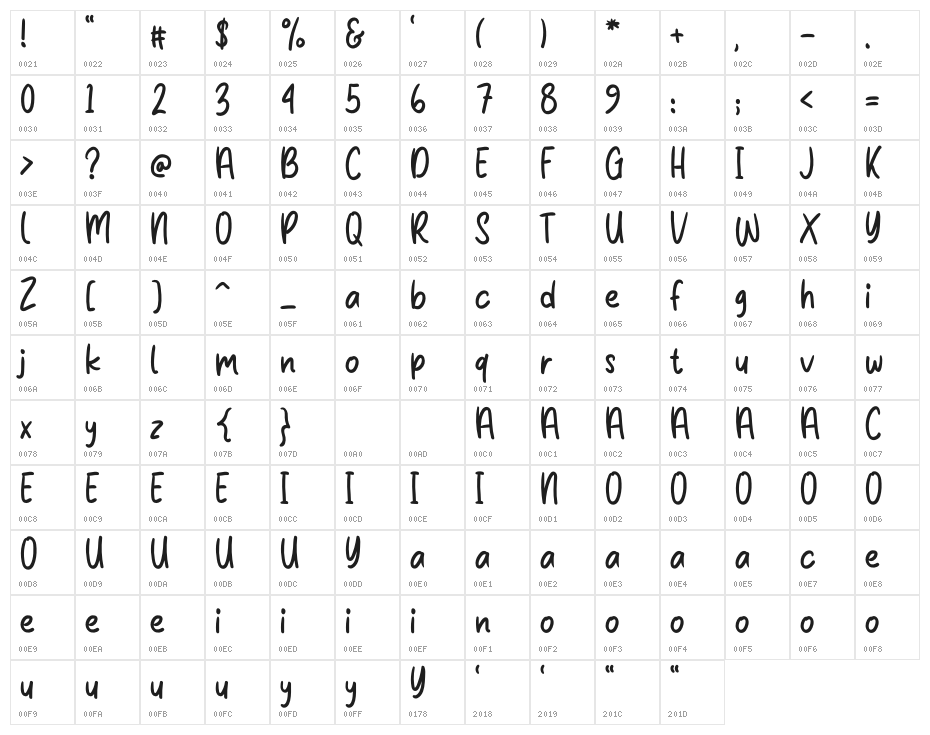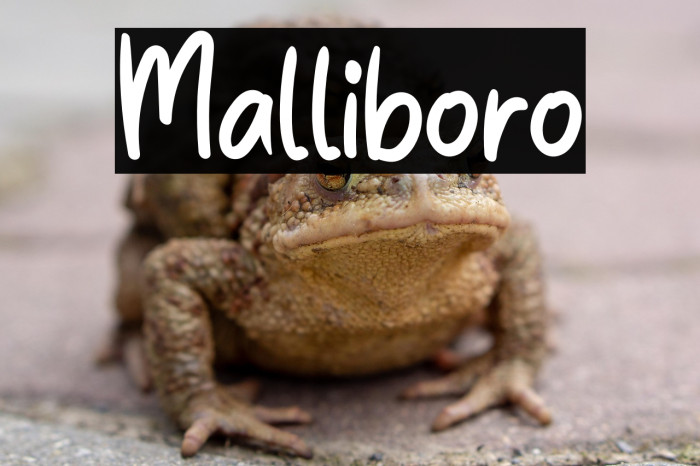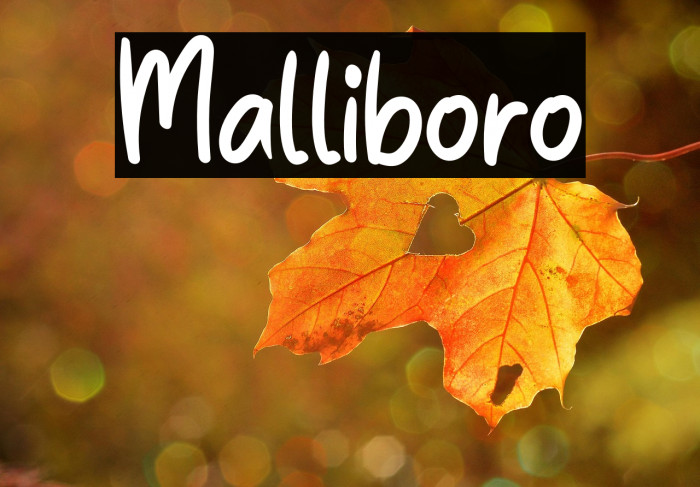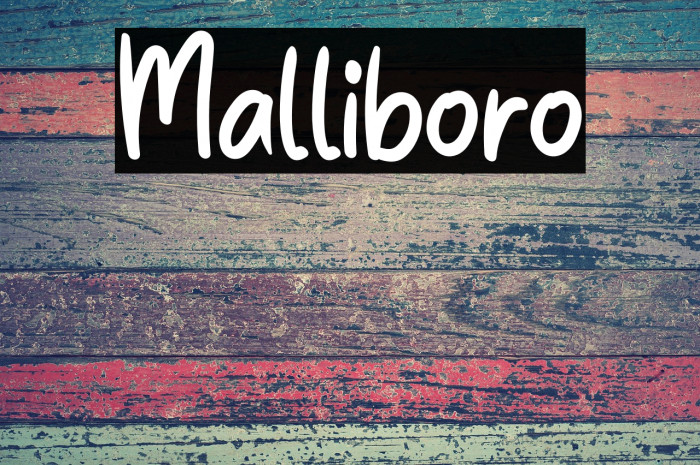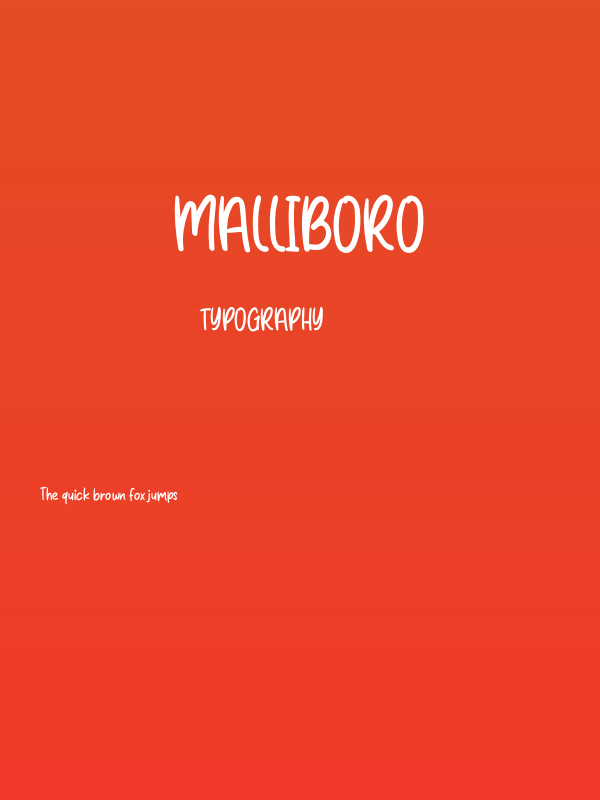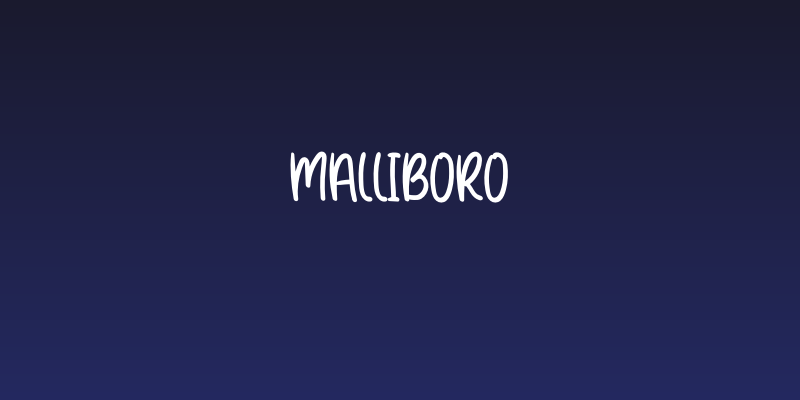
Malliboro Font
Malliboro Description
This font features a playful and casual handwritten style, characterized by its smooth, rounded strokes and slightly irregular letterforms. The uppercase and lowercase letters maintain a consistent flow, giving it a friendly and approachable appearance. The numbers and special characters are crafted with the same whimsical touch, ensuring a cohesive look across all elements. Its informal nature makes it suitable for projects that aim to convey warmth and creativity.
MALLIBORO UPPERCASE
MALLIBORO LOWERCASE
MALLIBORO OTHER CHARS
| Proposed Projects | Ideal for greeting cards, children's books, playful branding, and social media graphics. |